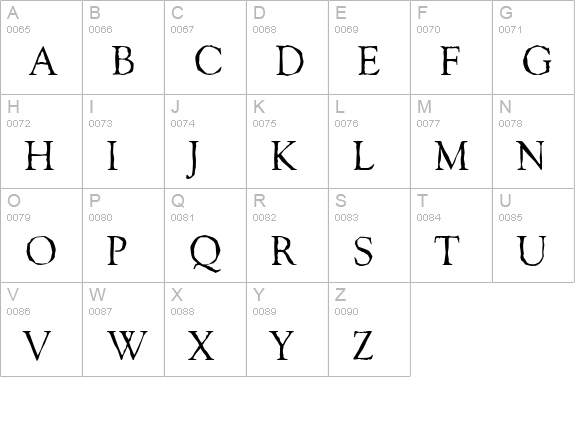
GoudyAntique-Regular is the standard, neutral variant in the GoudyAntique typeface family \xE2\x80\x94 well suited to general body text, paragraphs, and standard typographic work.
GoudyAntique-Regular is a timeless and elegant font that exudes sophistication and charm. With its classic serifs and graceful curves, this typeface is perfect for adding a touch of vintage flair to your designs. Whether you're working on invitations, branding, or editorial projects, GoudyAntique-Regular will give your work a sense of refinement and style. The best part? GoudyAntique-Regular is available for free download at FontsMarket.com. Simply visit the website and start using this beautiful font in your projects today. Embrace the beauty of GoudyAntique-Regular and elevate your design work to new heights.